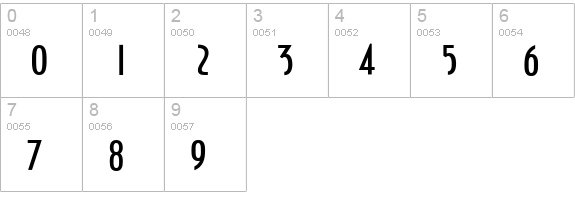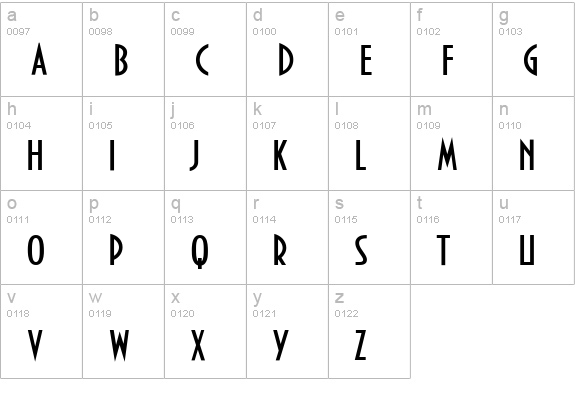
Bankir-Retro Font Details
Bankir-Retro font is a stunning display typeface that exudes a sense of nostalgia and vintage charm. Its bold and eye-catching design is perfect for adding a retro touch to your projects. The font features unique letterforms with a classic feel that will make your text stand out. What's even better is that Bankir-Retro font is available for free download at FontsMarket.com. This means you can easily access this beautiful typeface and incorporate it into your designs without any cost. Whether you're working on posters, logos, or branding materials, Bankir-Retro font is sure to give your work a timeless and stylish look. Download it now and start creating stunning designs with a hint of retro flair.